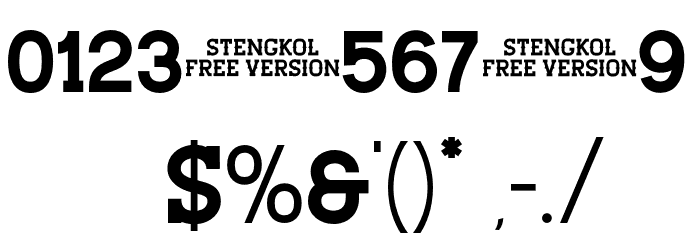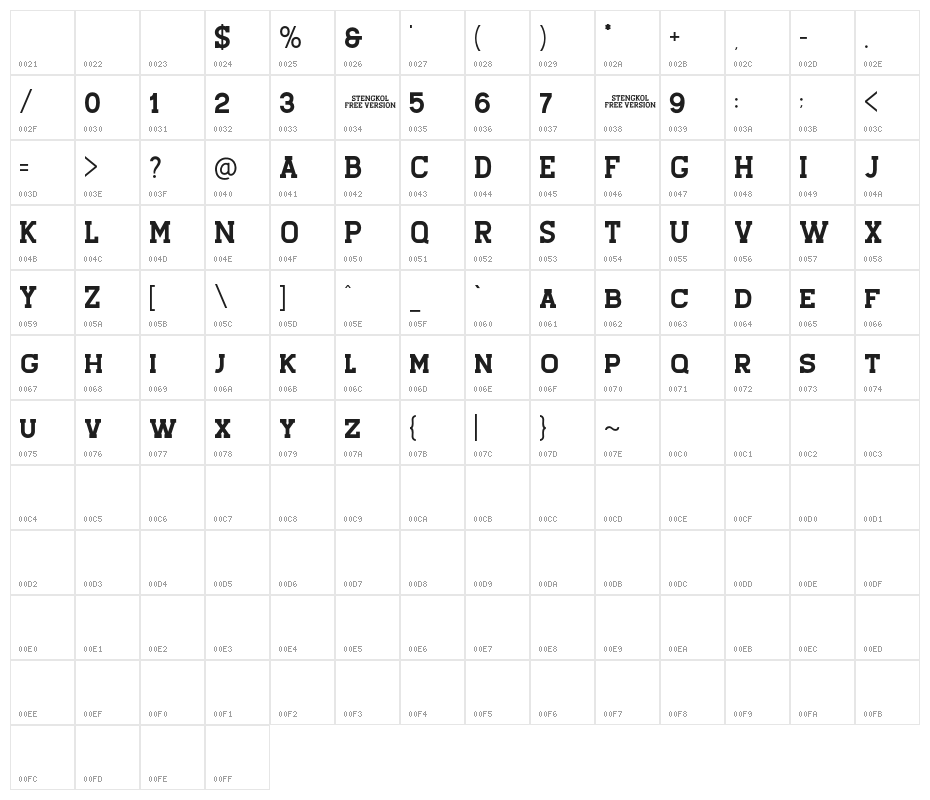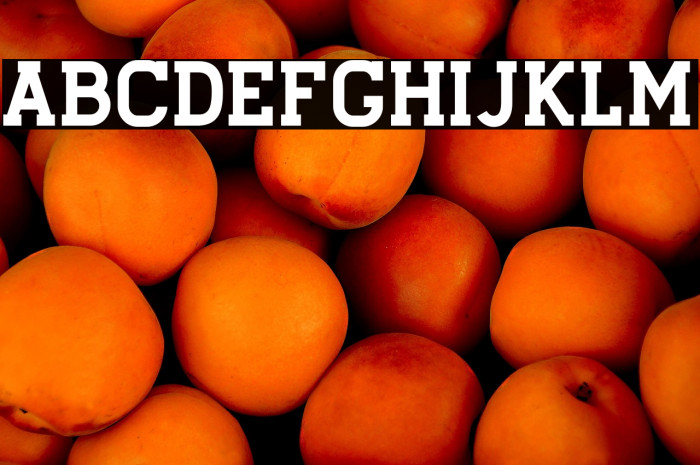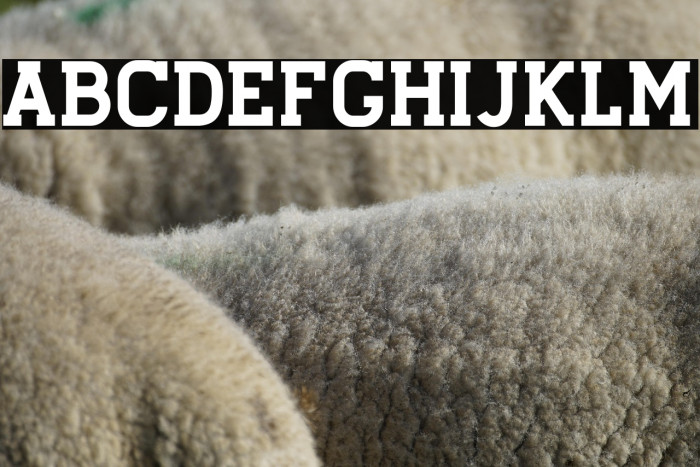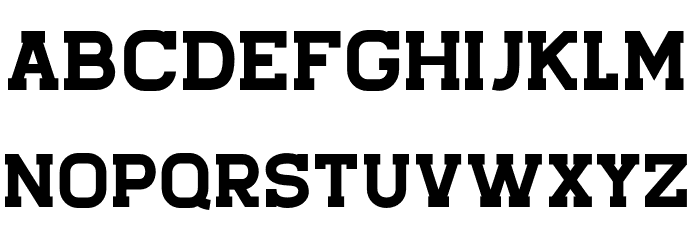
Stengkol01 Font
Stengkol01 Description
This font features a bold and robust design with strong, thick strokes that convey a sense of power and stability. The characters are well-defined with a slight geometric influence, giving them a modern yet timeless appeal. The uppercase letters are particularly striking, with a uniform height and width that create a harmonious and balanced appearance. The numerals and special characters maintain the same boldness, ensuring consistency across all text elements. This font is ideal for making a strong visual impact, whether in print or digital media.
| Proposed Projects | Ideal for branding, headlines, posters, and any project requiring a strong visual impact. |